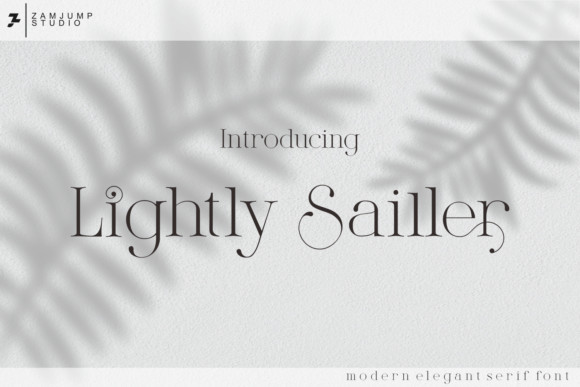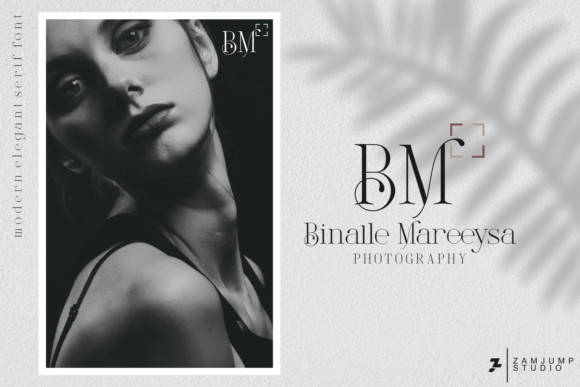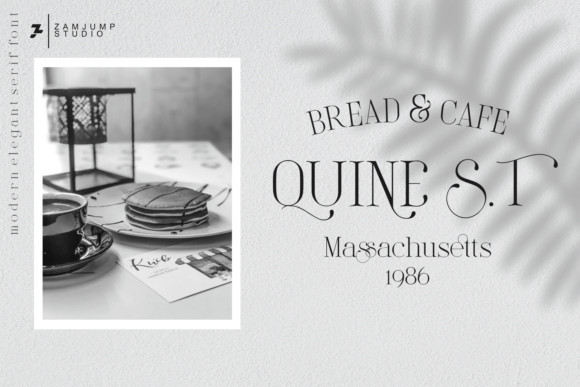
Lightly Sailler Font
Lightly Sailler FontLightly Sailler is a thin and stunning serif font. Use it to make your ideas even more realistic and create spectacular designs!